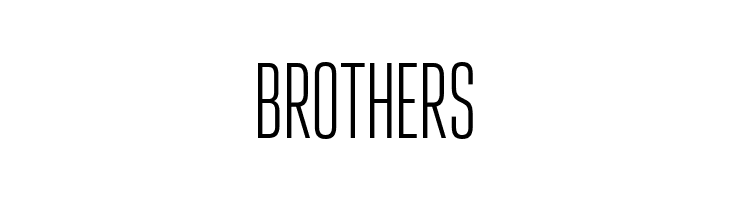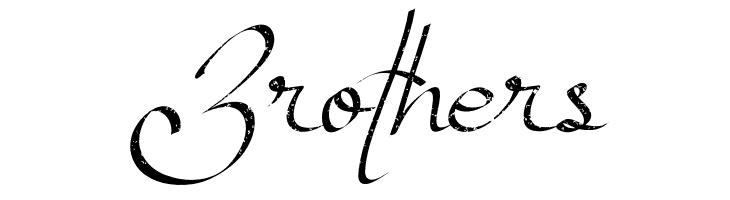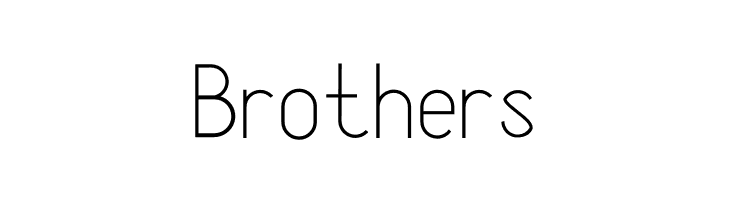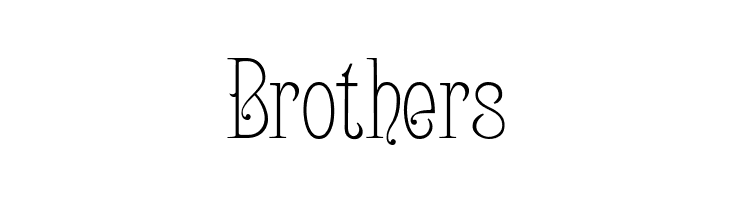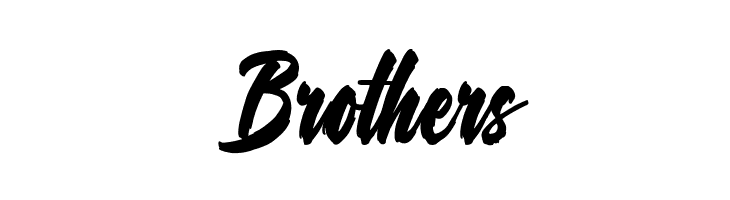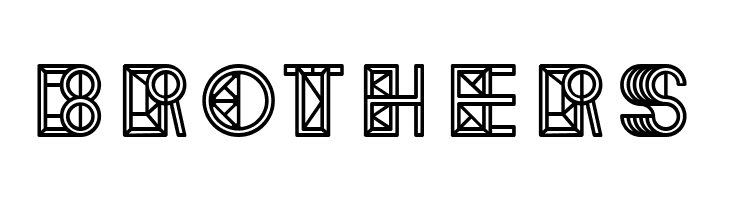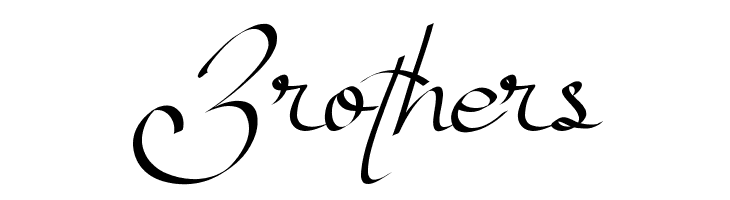
A bold, modern font with rounded edges and a friendly appearance.
A bold, expressive script font with fluid, connected strokes.
A modern, elegant script font with flowing, connected strokes.
An elegant, flowing script font with a natural handwriting style.
A casual, handwritten script font with a flowing, natural style.
A flowing, cursive italic font with elegant, connected strokes.
A bold, playful handwritten font with a casual and friendly style.
A playful, casual handwritten font with smooth, flowing lines and varying stroke widths.
A whimsical collection of hand-drawn decorative lines and symbols.
A playful handwritten font with rounded, consistent strokes and a casual style.
A playful, handwritten font with rounded edges and a casual style.
A geometric and artistic font with intricate patterns and bold lines.
A sleek, ultra-light font with tall, narrow letterforms and a modern aesthetic.
An ultra-light, tall, and narrow font with a modern, minimalist style.
An elegant cursive font with flowing, connected characters.
A dynamic and expressive handwritten font with fluid, interconnected strokes.
A fluid, cursive handwritten font with an elegant and personal style.
A dynamic, flowing script font with a cursive, handwritten style.
A high-contrast serif font with elegant, sharp serifs and a classic style.
A fluid and elegant script font with sweeping curves and graceful lines.
A modern, elegant script font with high contrast and flowing lines.
A modern, geometric sans-serif font with a clean and minimalist design.
A vintage-inspired script font with elegant, flowing characters and a distressed texture.
A modern, geometric sans-serif font with a sleek and minimalist design.
A vintage script font with elegant, flowing characters and a distressed texture.
A decorative font with elegant, swirling serifs and intricate curls.
A dynamic and expressive handwritten font with fluid, flowing letterforms.
A dynamic, expressive handwritten font with fluid, flowing letterforms.
A dynamic, expressive handwritten font with fluid strokes and elegant slant.
An elegant, cursive font with flowing, intricate designs and graceful loops.
An elegant, cursive script font with intricate loops and swirls.
A graceful script font with flowing, cursive strokes and elegant design.
A bold, cursive font with thick strokes and a flowing, dynamic style.
A bold, expressive script font with fluid, interconnected strokes.
A bold, angular font with a futuristic and geometric style.